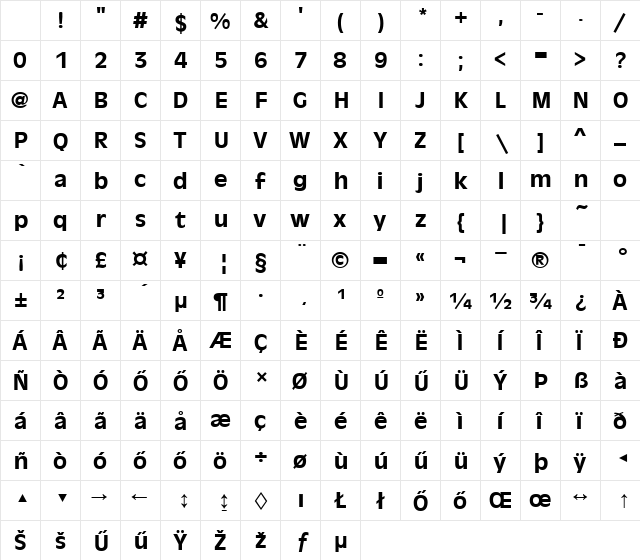
H_Antique Olive wears its vintage influences proudly, with letterforms that recall mid-century signage, classic packaging, and nostalgia-driven design. Its bold stroke weight gives it real presence on the page.
Font Pairing: Combine H_Antique Olive with a simple slab or neutral sans - period-accurate companions reinforce the vintage feel without competing for attention.
Pro Tip: Lean into H_Antique Olive's period character by pairing it with aged paper textures, muted colour palettes, and vintage illustration styles.